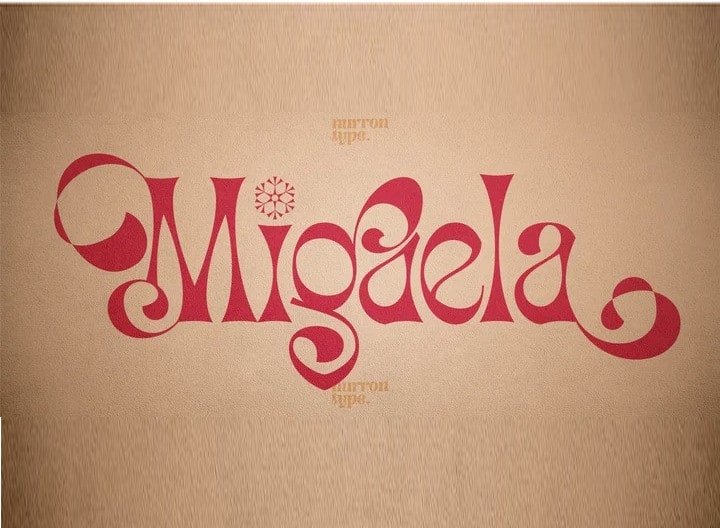
Migaela Font
Introducing Migaela Display Font is a fresh display typeface. Made from font designer named Nurrontype. As you can see, this typeface has playful and fun look which is perfectly made to be applied especially in storybook cover, comics, cartoon characters, kids theme design, etc.